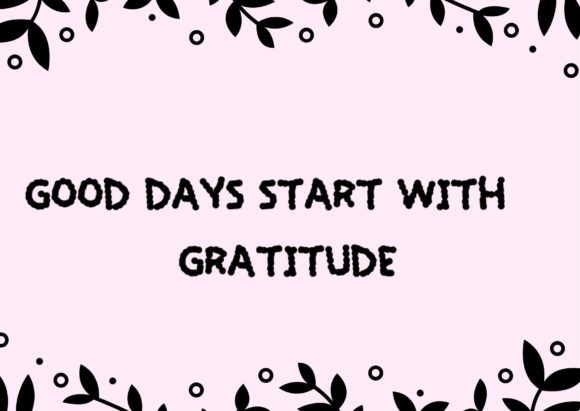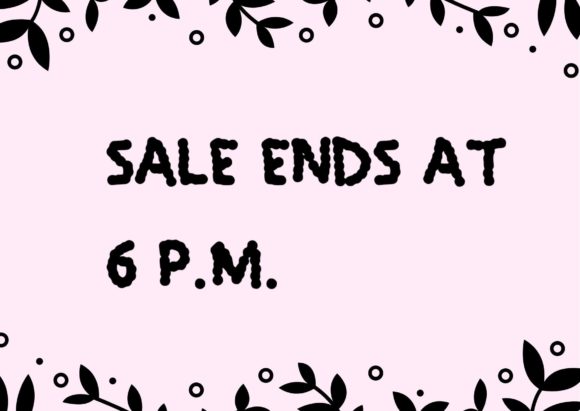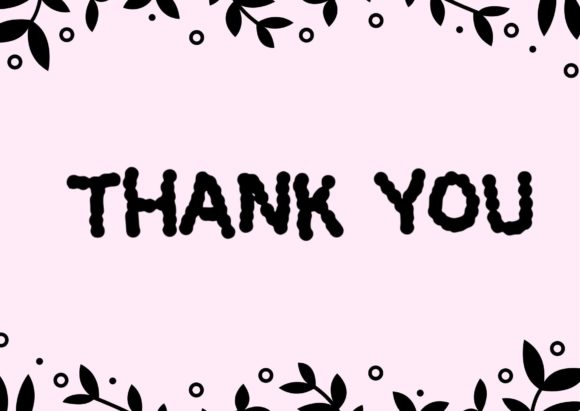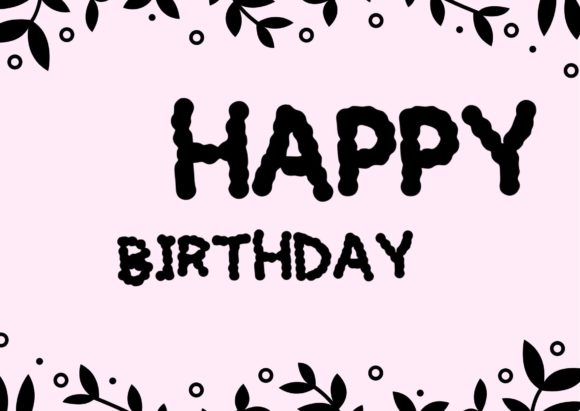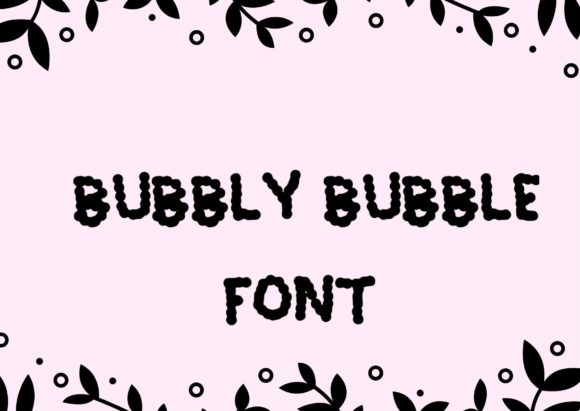
Bubbly Bubble Font: The Spookiest and Coolest Display Font for Your Designs
Are you tired of using the same old fonts in your designs? Do you want to add a touch of spookiness and coolness to your creations? Look no further than the Bubbly Bubble font! This display font is perfect for designers and crafters who want to elevate their work and make it stand out from the crowd.
What is Bubbly Bubble Font?
Bubbly Bubble is a unique and eye-catching display font that is sure to grab attention. Its cool and spooky design makes it perfect for a wide range of projects, from Halloween-themed designs to bold and edgy branding. The font’s bubbly and playful texture adds a touch of whimsy and fun, making it ideal for designs that require a bit of personality.
Why You’ll Love Bubbly Bubble Font
So, what makes Bubbly Bubble font so special? Here are just a few reasons why you’ll love adding it to your font library:
- Versatility: No matter the topic or theme, Bubbly Bubble font is sure to be a great fit. Its versatility makes it perfect for a wide range of projects, from spooky Halloween designs to fun and playful branding.
- Unique Design: The font’s bubbly and playful texture is unlike anything you’ve seen before. Its unique design makes it sure to grab attention and leave a lasting impression.
How to Use Bubbly Bubble Font
So, how can you use Bubbly Bubble font in your designs? Here are a few ideas to get you started:
- Halloween-themed designs: Bubbly Bubble font is perfect for Halloween-themed designs, such as party invitations, pumpkin carvings, and spooky branding.
- Branding and logos: The font’s bold and edgy design makes it perfect for branding and logos. Use it to create a unique and memorable brand identity.
- Signs and posters: Bubbly Bubble font is great for signs and posters. Its eye-catching design makes it perfect for grabbing attention and conveying a message.
Tips and Tricks for Working with Bubbly Bubble Font
Here are a few tips and tricks for working with Bubbly Bubble font:
- Experiment with colors: Bubbly Bubble font looks great in a variety of colors. Experiment with different colors and combinations to find the perfect look for your design.
- Play with textures: The font’s bubbly texture is a key part of its design. Experiment with different textures and effects to add depth and interest to your design.
- Keep it simple: While Bubbly Bubble font is bold and eye-catching, it’s best to keep your design simple and clean. Avoid clutter and focus on the message you want to convey.
Bubbly Bubble font is a cool and spooky display font that is sure to elevate your designs. Its unique and eye-catching design makes it perfect for a wide range of projects, from Halloween-themed designs to bold and edgy branding. With its versatility, ease of use, and bold design, Bubbly Bubble font is a must-have for any designer or crafter looking to add a touch of personality to their work.